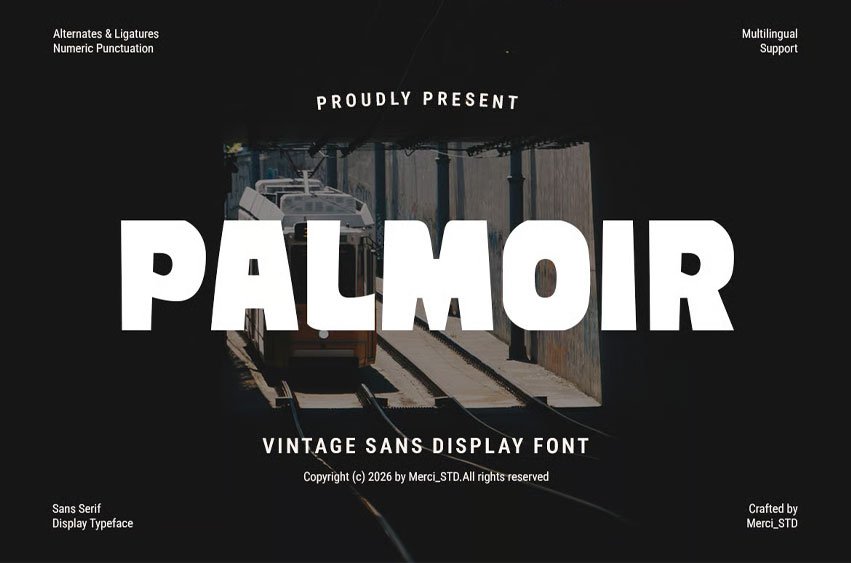
Palmoir Font is a bold vintage sans display font inspired by retro signage and classic urban typography. Featuring thick letterforms with clean curves and a nostalgic visual feel, this font is perfect for vintage branding, poster headlines, café menus, editorial layouts, packaging, and retro-themed creative projects.
Its strong and timeless style creates eye-catching typography with excellent readability.